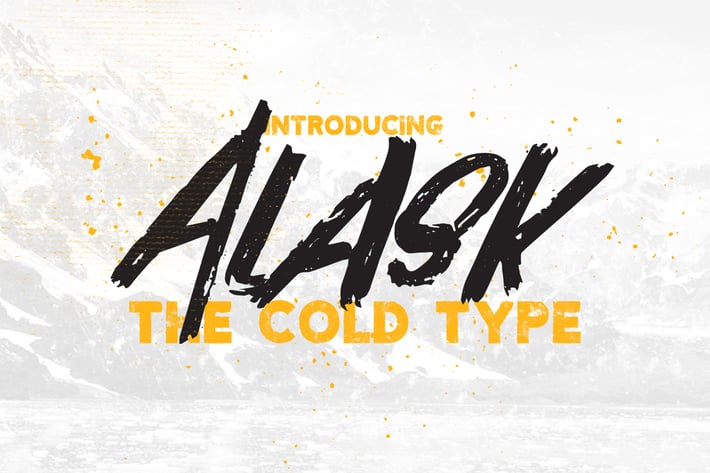
Alask Font
ALASK is a brush font including all Central European glyphs and it comes in a regular and slant version. Font bursting with energy, quick strokes, and sharp edges. Ideal for loud messages. Very interesting to use for logos, name tags, handwritten quotes, product packaging, merchandise, social media & greeting cards. Also, ideal to make t-shirts designs and other clothing products.
ALASK - Hand brushed font including all uppercase letters which have a complete set of A-Z, and support for whole Central European letters. Combinate uppercase and lowercase letters to get interesting text styles.